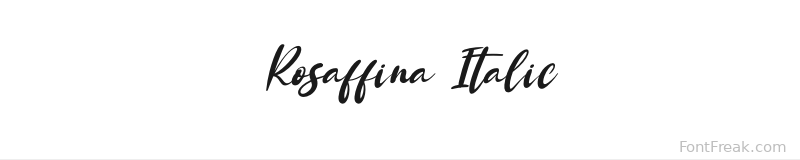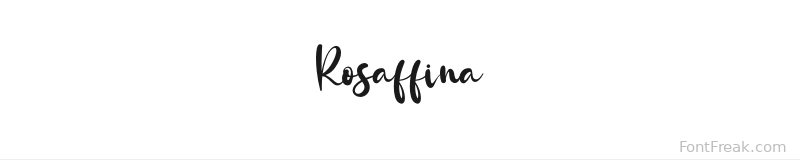
Rosaffina
Rosaffina Italic
About Rosaffina
Rosaffina is a beautifully crafted handwritten typeface by Kong Font, released in 2020. This font embodies a casual elegance that makes it a popular choice among designers looking for a unique twist in their typography. Classified as a script font, Rosaffina features smooth, flowing strokes that exude a sense of warmth and personality. The stroke weight varies subtly, creating a gentle contrast that enhances its handwritten appearance. The spacing is thoughtfully designed to maintain legibility while preserving the charm of a natural script.
Rosaffina is particularly well-suited for a variety of creative applications. It shines in wedding invitations, where its elegant flair can elevate the overall aesthetic. Additionally, it fits beautifully in branding materials for boutique shops or artisanal products, helping to convey a personal touch. Restaurant menus can also benefit from Rosaffina’s inviting character, making dishes feel more appealing and handwritten. Furthermore, content creators can use this font in social media graphics and promotional materials to engage their audience with a distinctive style.
The target audience for Rosaffina includes graphic designers, small business owners, and content creators who seek to add a personal and artistic flair to their projects. Its versatility allows it to seamlessly merge with various design themes, making it a valuable asset in any designer's toolkit.